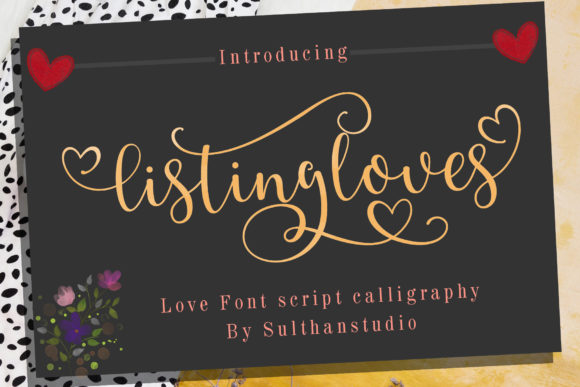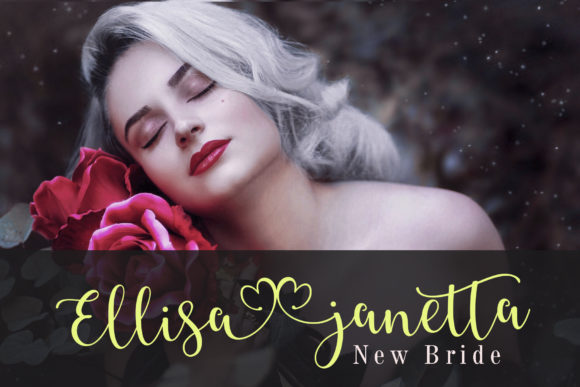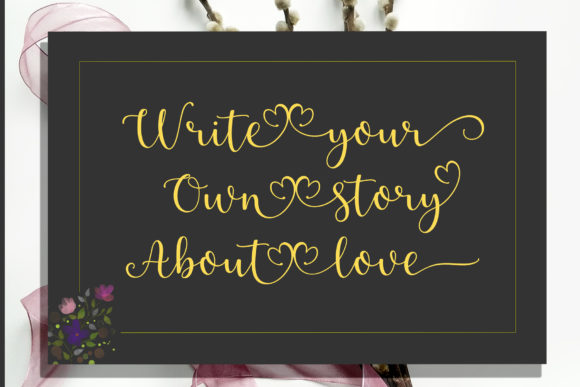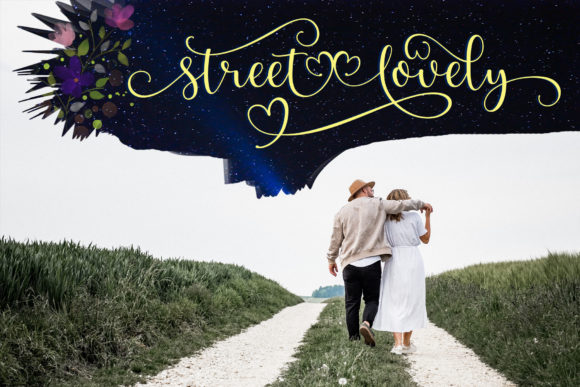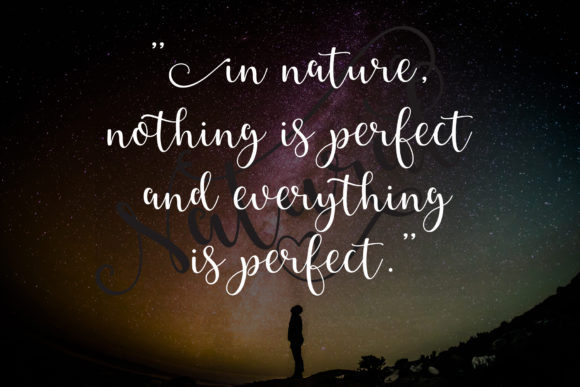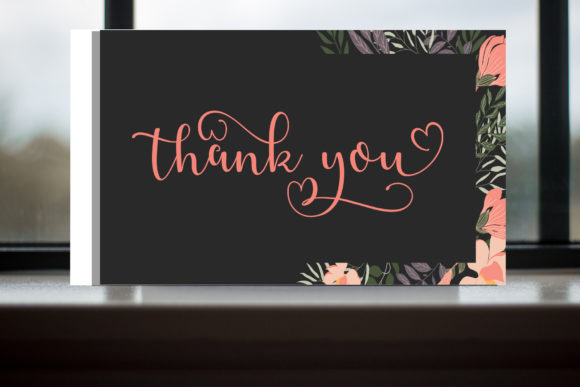
Listing Loves Font
About Listing Loves Font
Listing loves is a cute calligraphy font with two hearts that can be connected to design something spectacular! Great for greeting cards, branding materials, business cards, quotes, posters, and much more!